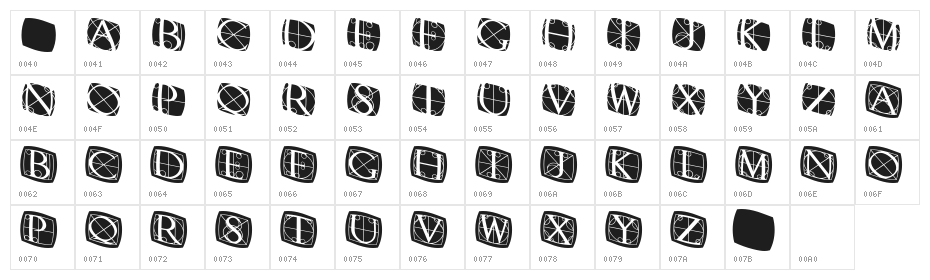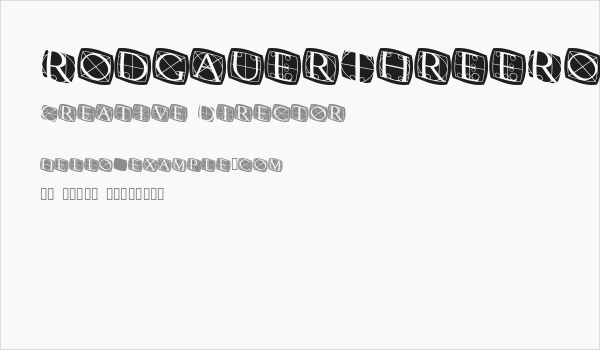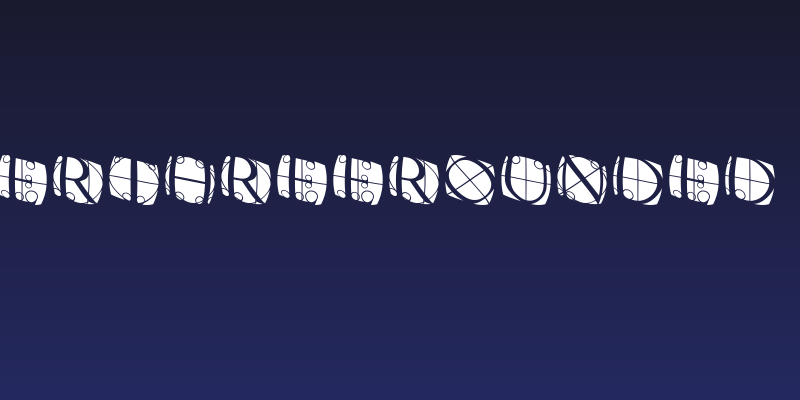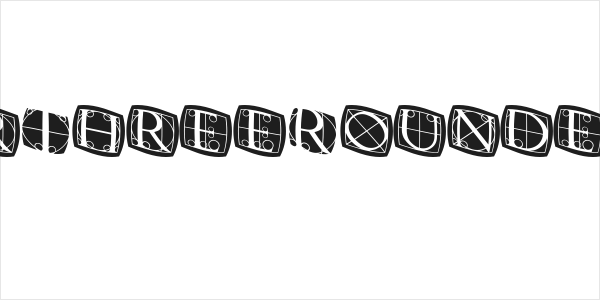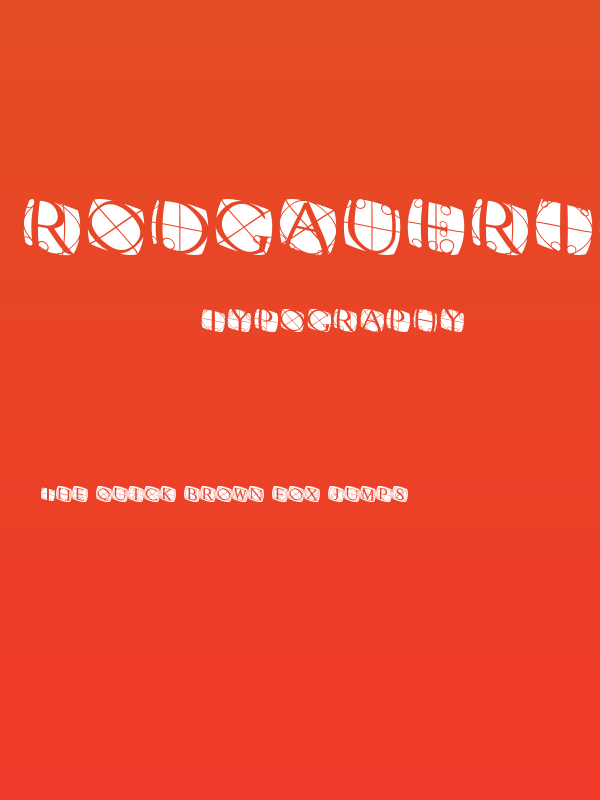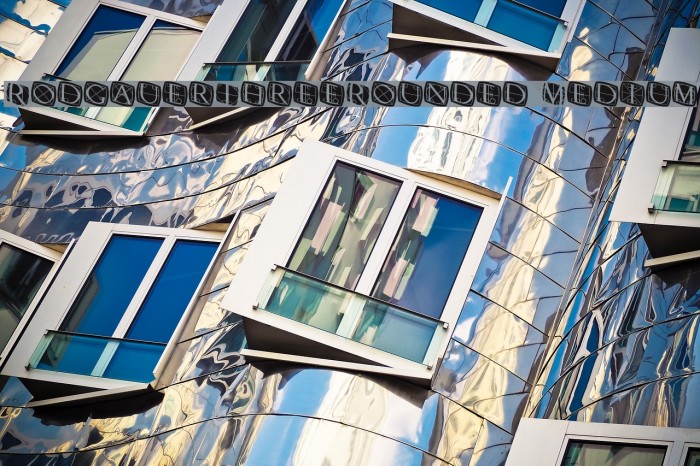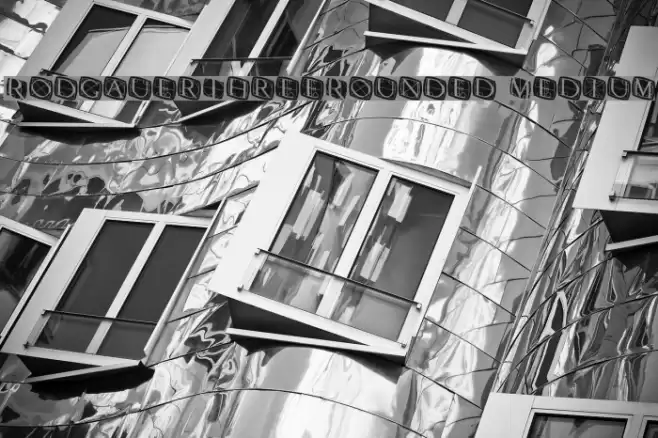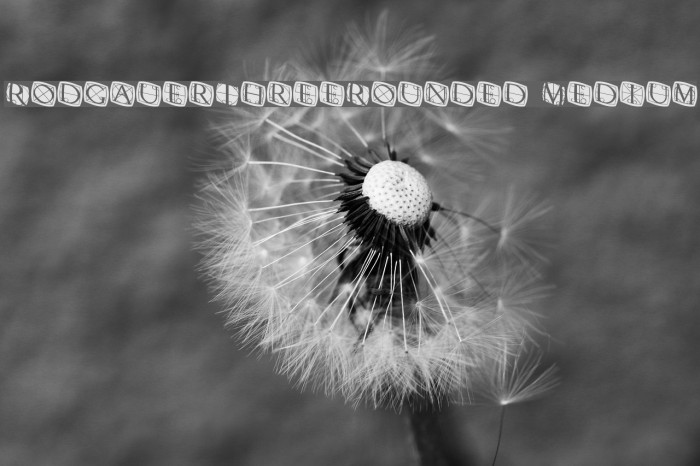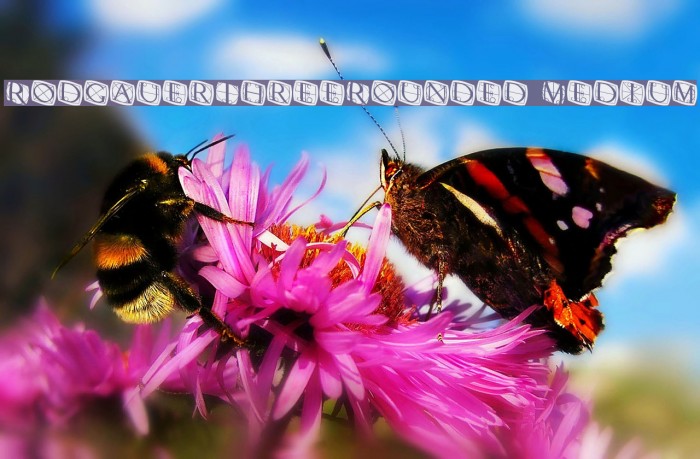
RodgauerThreeRounded Medium Font
RodgauerThreeRounded Medium Description
This font features a unique and bold design with rounded edges and a geometric pattern within each character. The letters are enclosed in a square-like shape, giving them a distinct and modern appearance. The use of lines and circles within the characters adds an intricate and decorative element, making it stand out for creative and artistic projects. The font is highly stylized, with each letter appearing as a piece of art, suitable for eye-catching designs. Its boldness and decorative nature make it less suitable for body text but ideal for headlines and logos.
| Overall Style | Modern, Decorative |
| Proposed Projects | Ideal for creative projects such as logos, posters, and artistic headlines. |